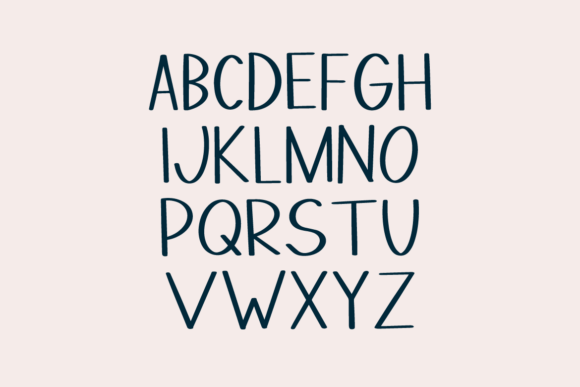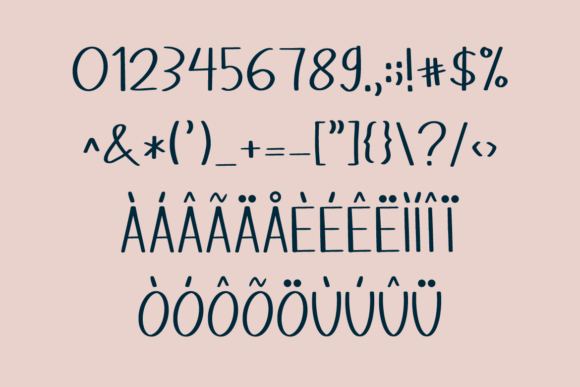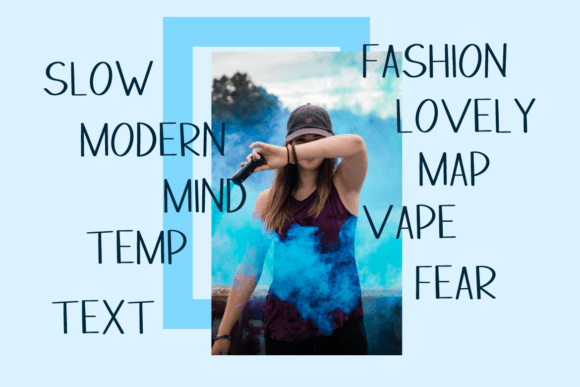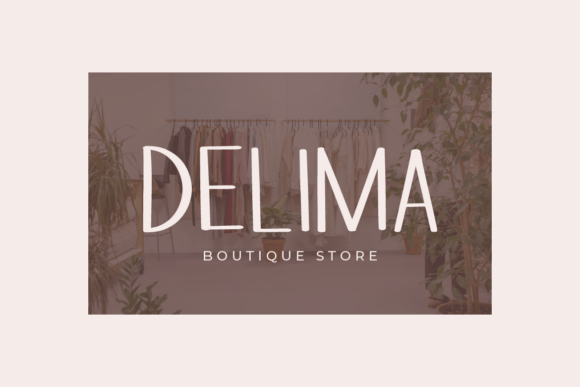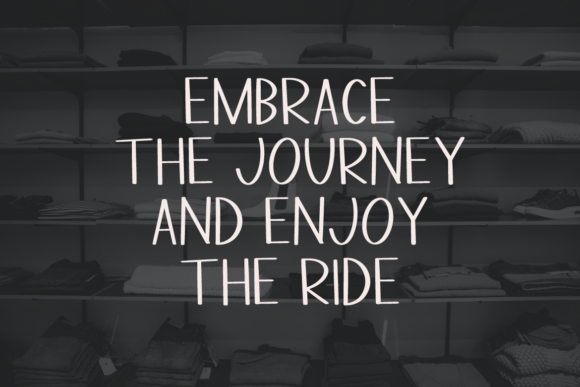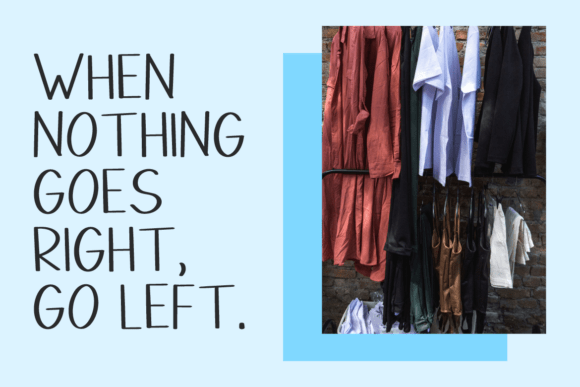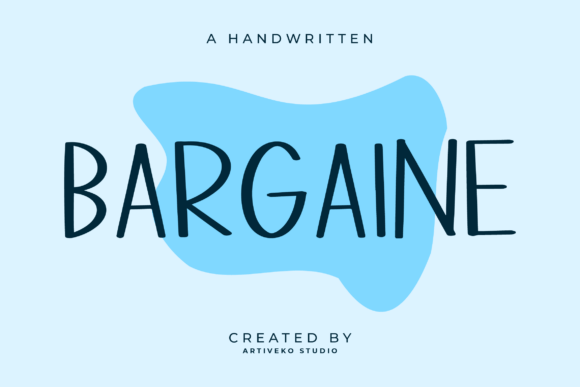
Bargaine Font: Unleash Your Creativity with this Stylish Handwritten Font
In the world of typography, a font can make or break a design. If you’re a designer, crafty person, or simply someone who loves to create, you’re always on the lookout for the perfect font to bring your ideas to life. That’s where Bargaine Font comes in – a stylish handwritten font that adds a punch of creativity and confidence to your design.
The Personality of Bargaine Font
Bargaine Font is not just any ordinary font. It’s a carefully crafted, handwritten typeface that exudes energy, spontaneity, and authenticity. Its imperfect lines and natural flow give it a personal, handcrafted touch that’s hard to resist. With Bargaine, you can add a dash of personality to your designs, making them stand out in a crowded digital landscape.
What Makes Bargaine Font Special?
So, what sets Bargaine Font apart from other fonts out there? Here are a few key features that make it a standout:
- Energetic Strokes: Bargaine Font features energetic strokes that give it a dynamic, lively feel. Perfect for designs that need a boost of energy and creativity.
- Imperfect Lines: The imperfect lines in Bargaine Font add a touch of authenticity and humanity to your designs. It’s like having a personal, handwritten note in your digital creations.
- Natural Flow: The natural flow of Bargaine Font makes it easy to read and understand. It’s perfect for body text, headings, and titles.
Use Cases for Bargaine Font
Bargaine Font is incredibly versatile and can be used in a variety of design projects. Here are some ideas to get you started:
- Branding: Use Bargaine Font to create a unique and memorable brand identity. Perfect for logos, business cards, and letterheads.
- Merchandise: Add a personal touch to your merchandise designs with Bargaine Font. Great for t-shirts, mugs, and other promotional items.
- Quotes and Social Media: Make your quotes and social media posts stand out with Bargaine Font. It’s perfect for creating engaging and shareable content.
- Packaging: Use Bargaine Font to add a personal touch to your packaging designs. Great for food labels, product packaging, and more.
- Lifestyle Content: Add a touch of personality to your lifestyle content with Bargaine Font. Perfect for blogs, magazines, and other digital publications.
Why Designers and Crafters Love Bargaine Font
Designers and crafters love Bargaine Font for its unique blend of style and personality. Here are a few reasons why:
- Easy to Read: Despite its handwritten nature, Bargaine Font is easy to read and understand. Perfect for body text and other long-form content.
- Highly Versatile: Bargaine Font can be used in a variety of design projects, from branding and merchandise to quotes and social media.
- Unique and Memorable: Bargaine Font is a one-of-a-kind typeface that’s sure to make your designs stand out. Perfect for designers and crafters who want to create something truly unique.
In conclusion, Bargaine Font is a stylish handwritten font that’s perfect for designers and crafters who want to add a touch of creativity and personality to their designs. With its energetic strokes, imperfect lines, and natural flow, Bargaine Font is sure to make your designs stand out. Whether you’re working on a branding project, merchandise design, or simply want to add a personal touch to your social media posts, Bargaine Font is the perfect choice.